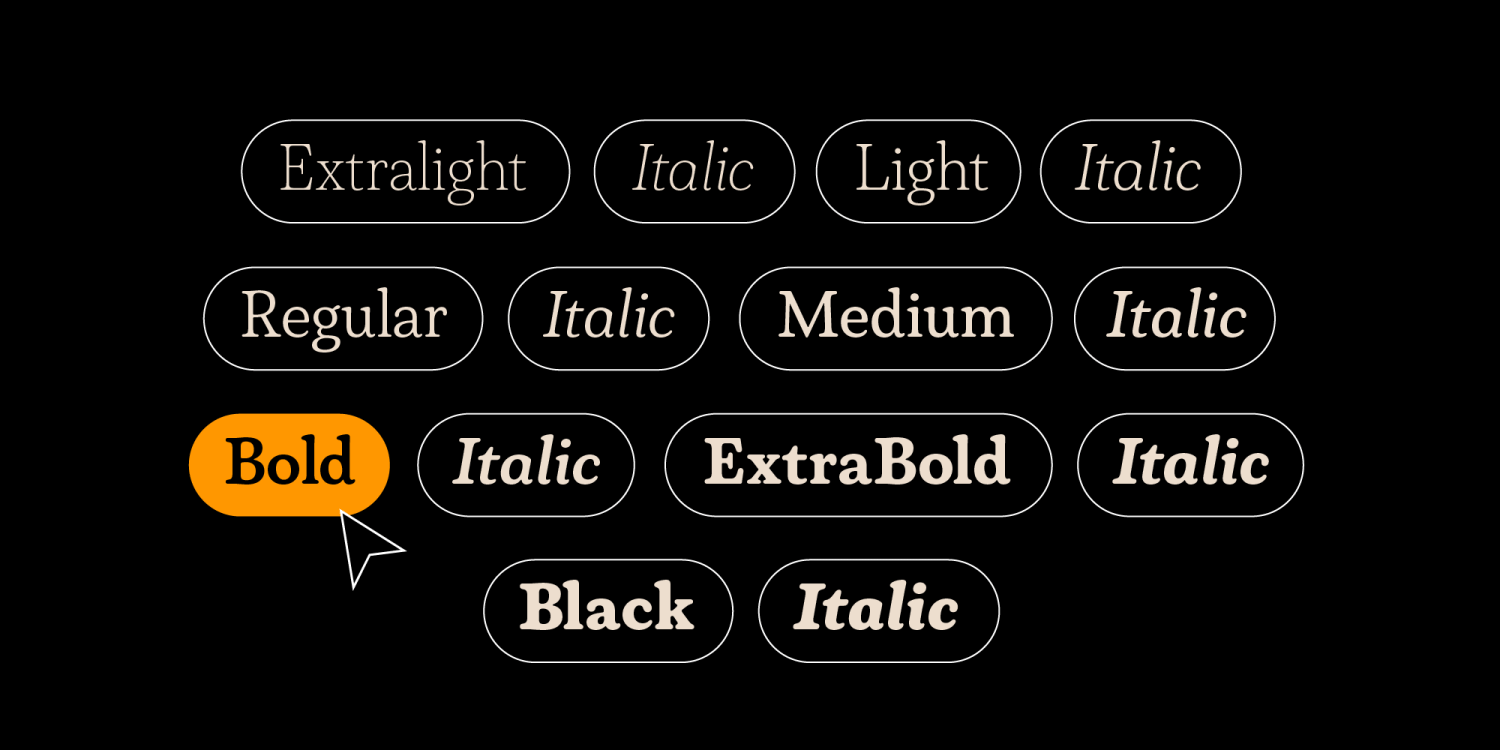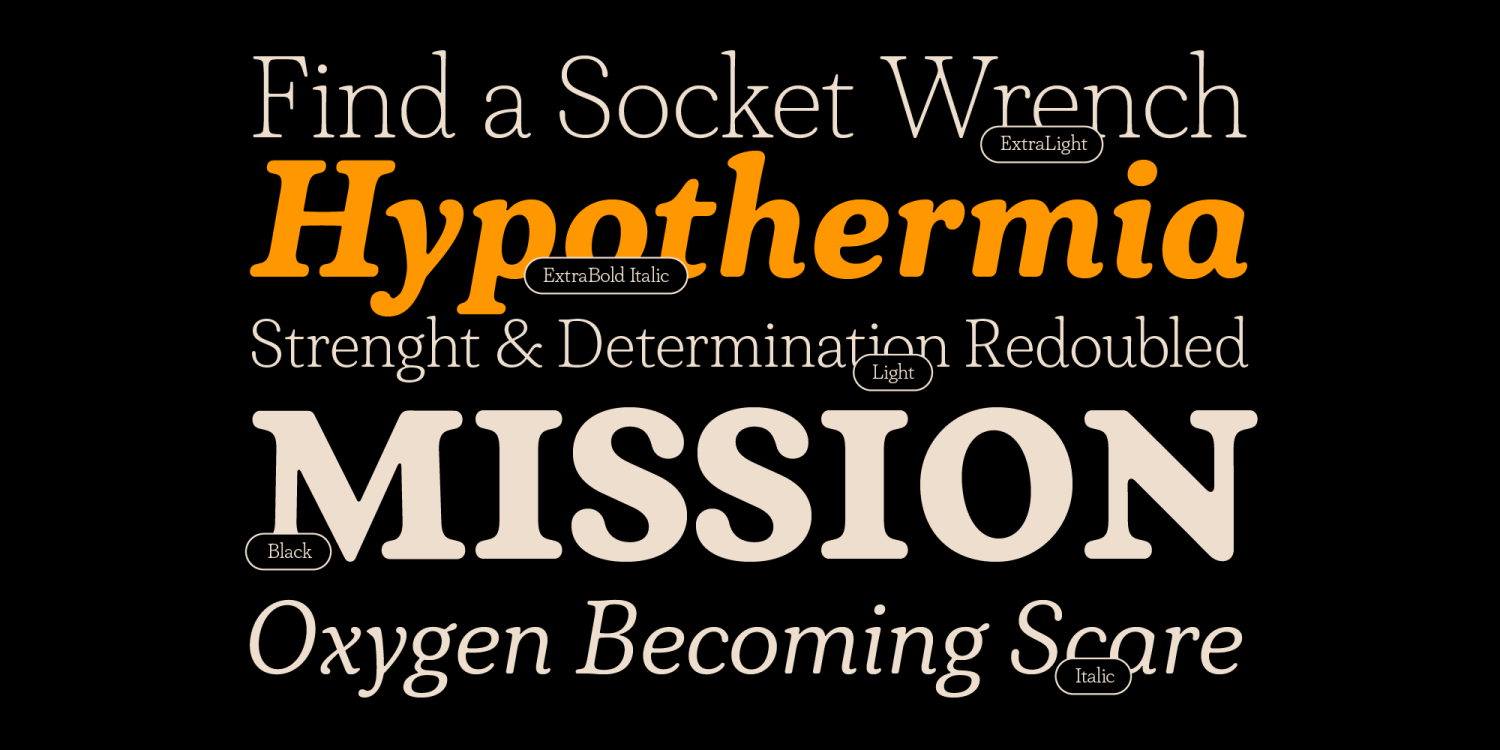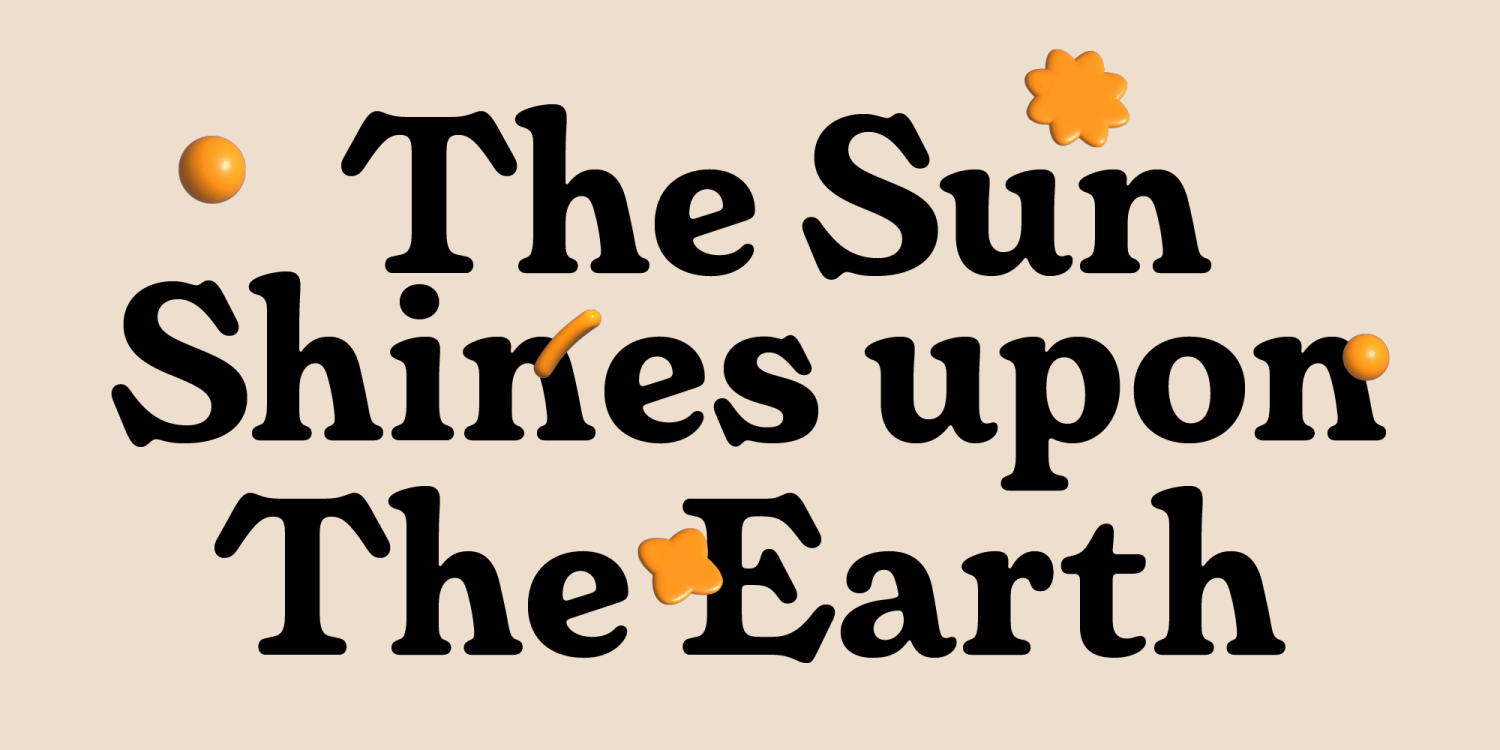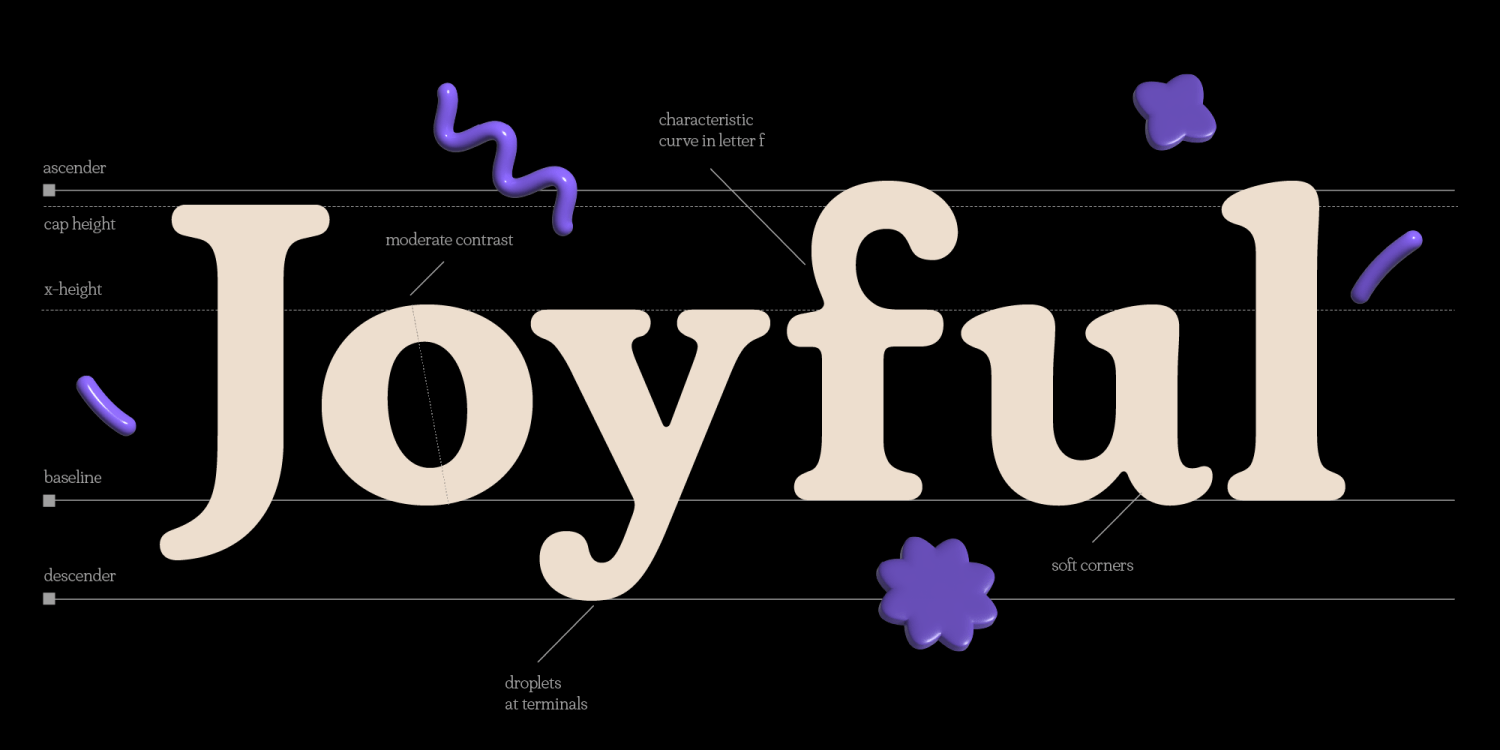
Plush
Font Family by Fontfabric
Designed by Fontfabric, Plush draws inspiration from beloved classics like Windsor and Cooper, masterfully blending traditional elegance with a fresh, modern sensibility. Plush was created to be both warm and approachable, with rounded serifs and gentle curves, while maintaining a robust structure that ensures excellent readability. Its versatile weight range and extended character set make it a go-to for designers who want a serif font that feels both timeless and contemporary.
Why Choose Plush?
Plush is perfect for high-end branding, editorial layouts, web projects, packaging, and anywhere you need text that’s both engaging and effortlessly readable. Its unique combination of rounded serifs, soft curves, and a strong, readable structure makes it an excellent choice for designers seeking a typeface that merges traditional elegance with modern simplicity. With a total of 16 styles, advanced OpenType features, and support for over 100 languages, Plush ensures versatility and high-quality typography for every project. Download Plush today!
Key Features of Plush
• Rounded Serifs: The soft, rounded serifs make "Plush" inviting and easy to read.
• Versatile Weight Range: From Light to Black, "Plush" offers a full spectrum of weights to suit any design need.
• Extended Character Set: Supports multiple languages and includes a range of glyphs for added versatility.
• Optimized Kerning: Precise kerning ensures that "Plush" looks balanced in every layout.